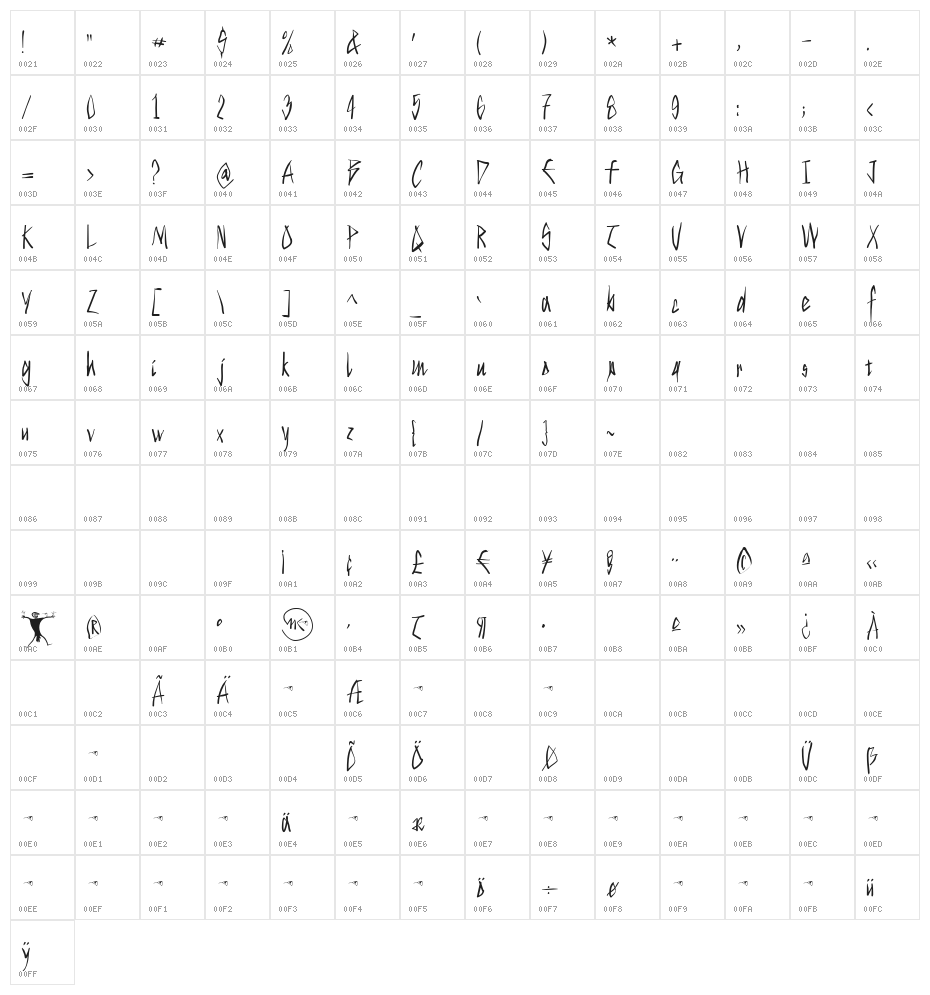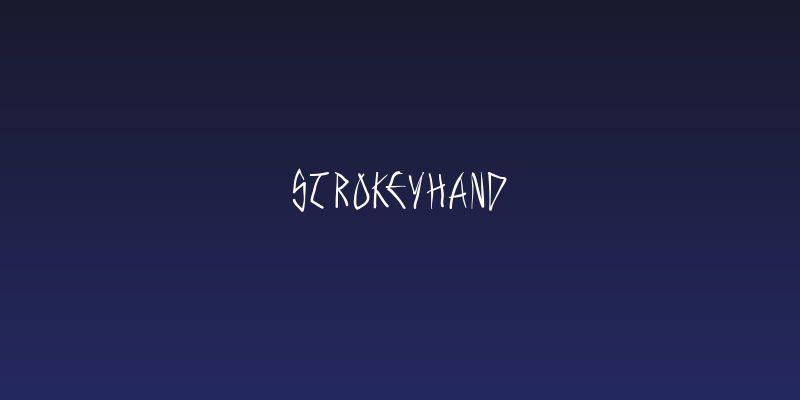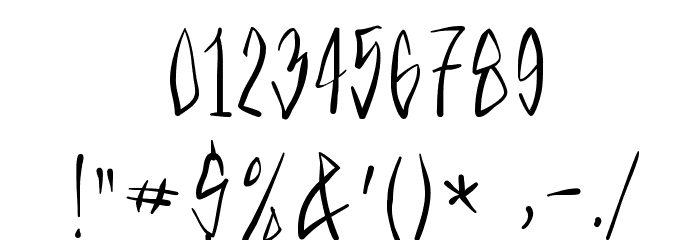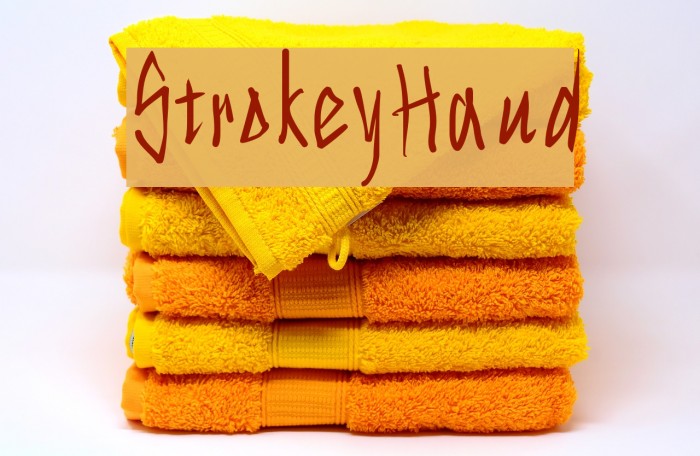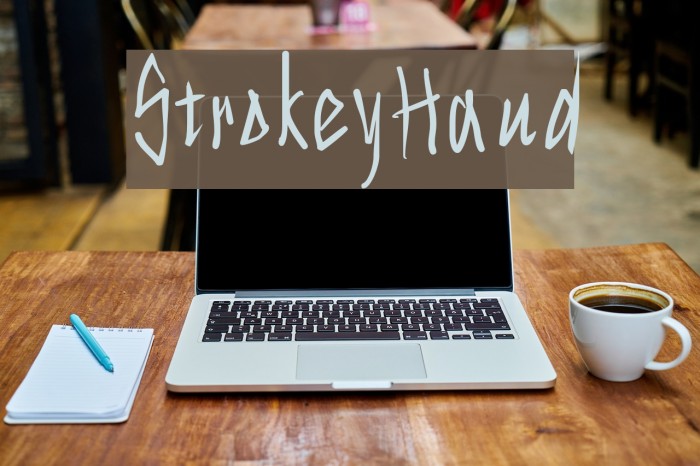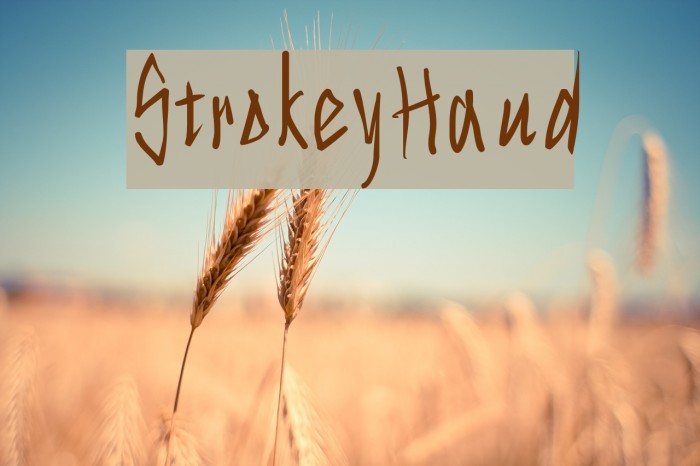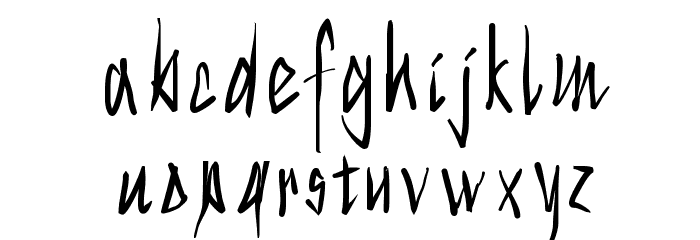
StrokeyHand Font
StrokeyHand Description
This font exhibits a dynamic and expressive handwritten style, characterized by its irregular strokes and playful, artistic flair. The letters vary in width and height, creating a sense of movement and spontaneity. The uppercase characters are bold and slightly angular, while the lowercase letters maintain a more fluid and casual appearance. Numbers and special characters follow the same lively aesthetic, adding to the font's overall charm. The unique style is reminiscent of a personal touch, making it ideal for projects that require a human element.